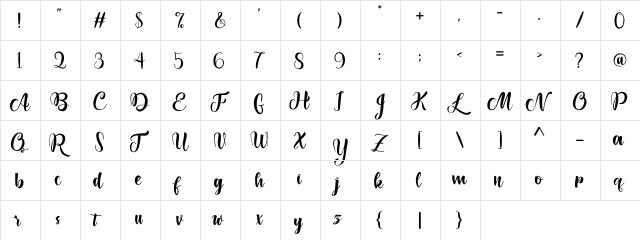
Lettyh Regular
Design Context for Lettyh Typeface
Lettyh is a composed and adaptable typeface that performs quietly and consistently across a wide range of design contexts.